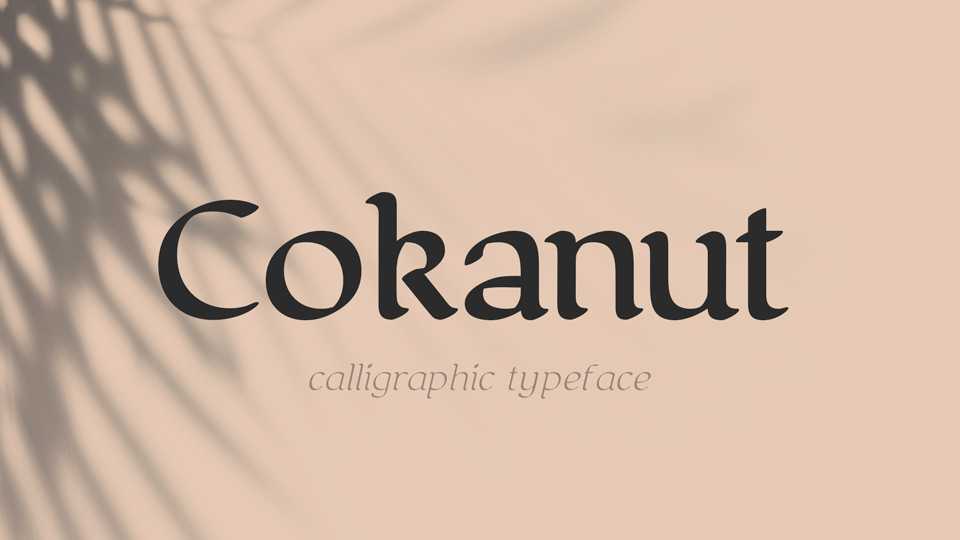
Download Cokanut typeface, a classic calligraphic font family in three weights and matching Italics with a soft and warm feel. Both traditional and elegant, Cokanut typeface perfectly fits for many applications, including text and decorative use.
Designer: Tapiwanashe Sebastian Garikayi